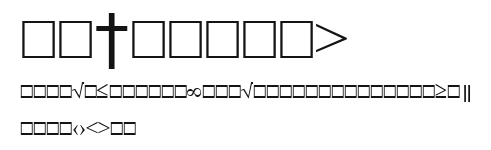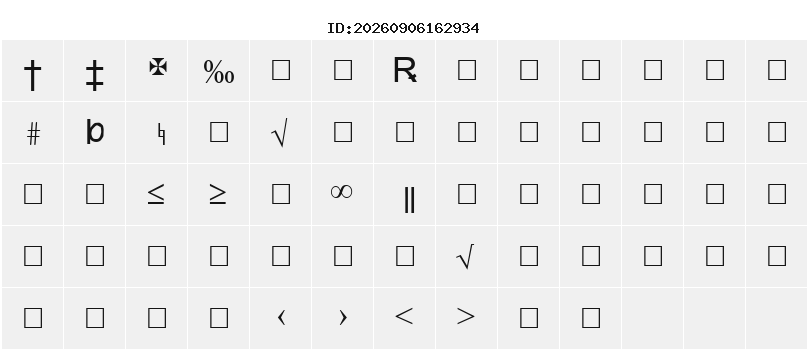
TWA 323237 Preview
About TWA 323237.ttf
TWA 323237.ttf is a modern, elegant sans-serif font designed for ultimate readability and visual harmony. Perfect for branding, headlines, web design, and print materials.